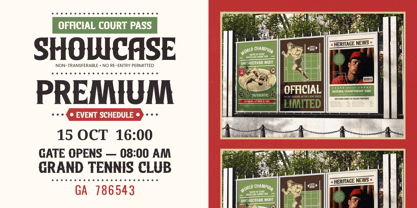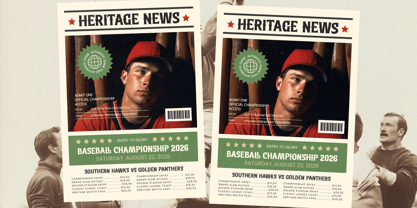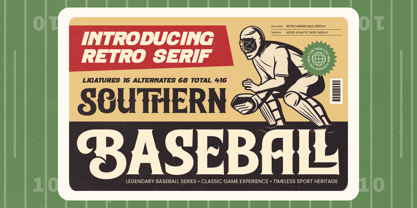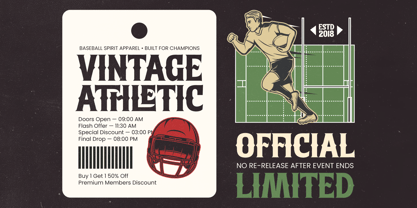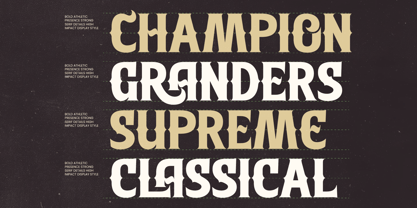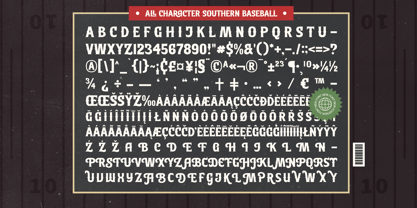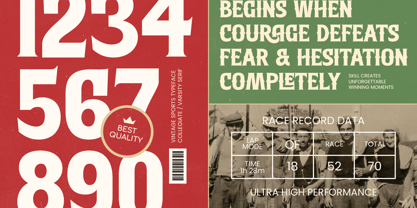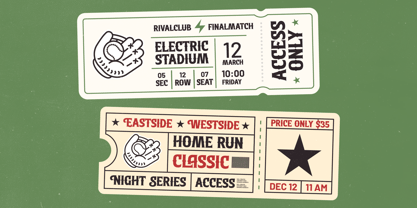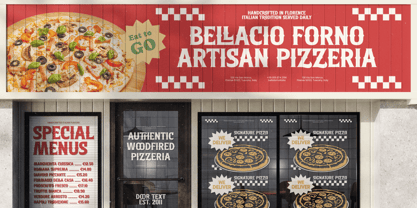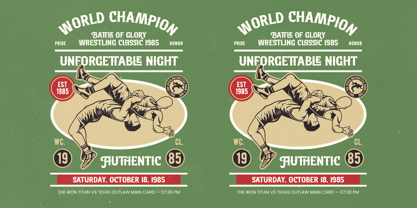
Southern Baseball
by Timelesstype Studio
The Southern Baseball Font Family was designed by Heru Utama Putra and published by Timelesstype Studio. Southern Baseball contains 2 styles and family package options. More about this family
Southern Baseball - Retro Athletic Serif Display, a typeface that embodies the strength and spirit of vintage Americana. This bold display font features high-contrast serifs and unique decorative swashes, making it an essential tool for designers seeking a nostalgic aesthetic with a modern edge. Its commanding presence ensures your headlines command attention while maintaining a sophisticated, timeless appeal for any high-end project.
Expand your creative horizons with unparalleled linguistic flexibility. With its extensive multilingual support, Southern Baseball - Retro Athletic Serif Display adapts seamlessly across global markets, making it incredibly versatile for international projects. Whether you are launching a campaign in Europe or beyond, this typeface maintains its visual integrity and legibility, ensuring your message resonates with audiences worldwide without compromising its classic athletic charm.